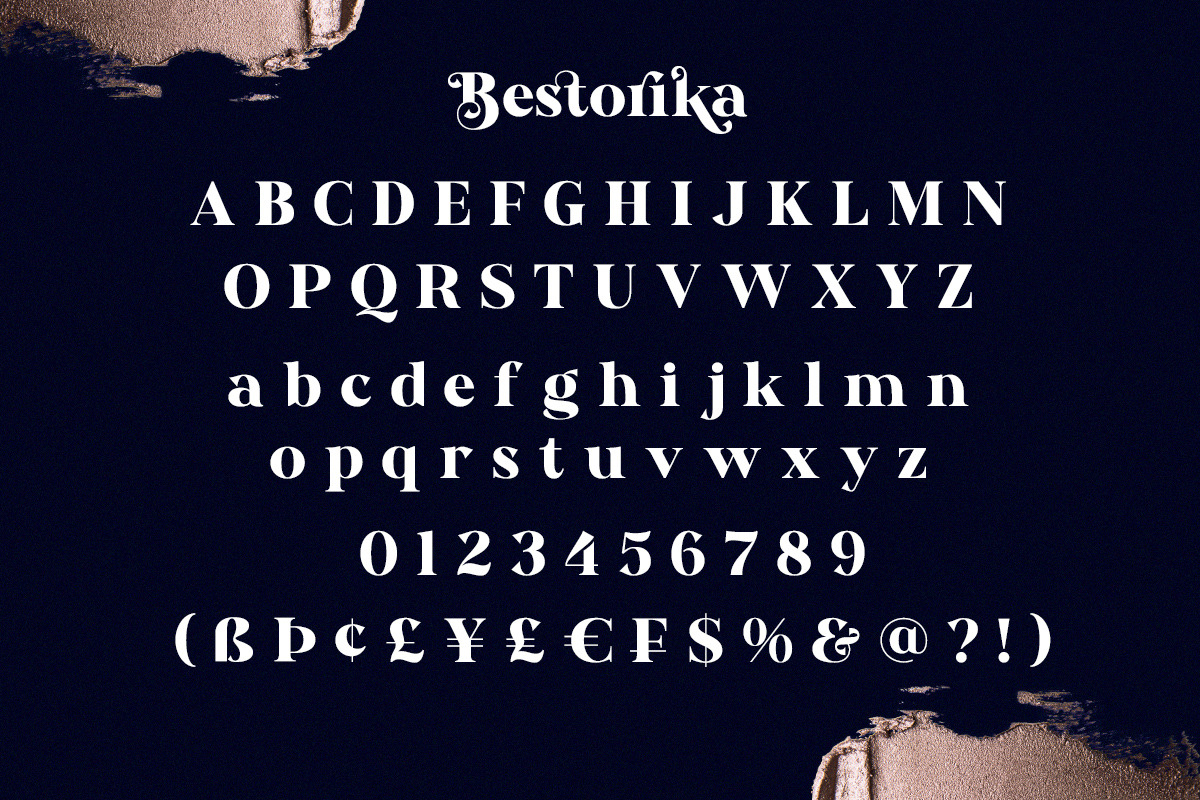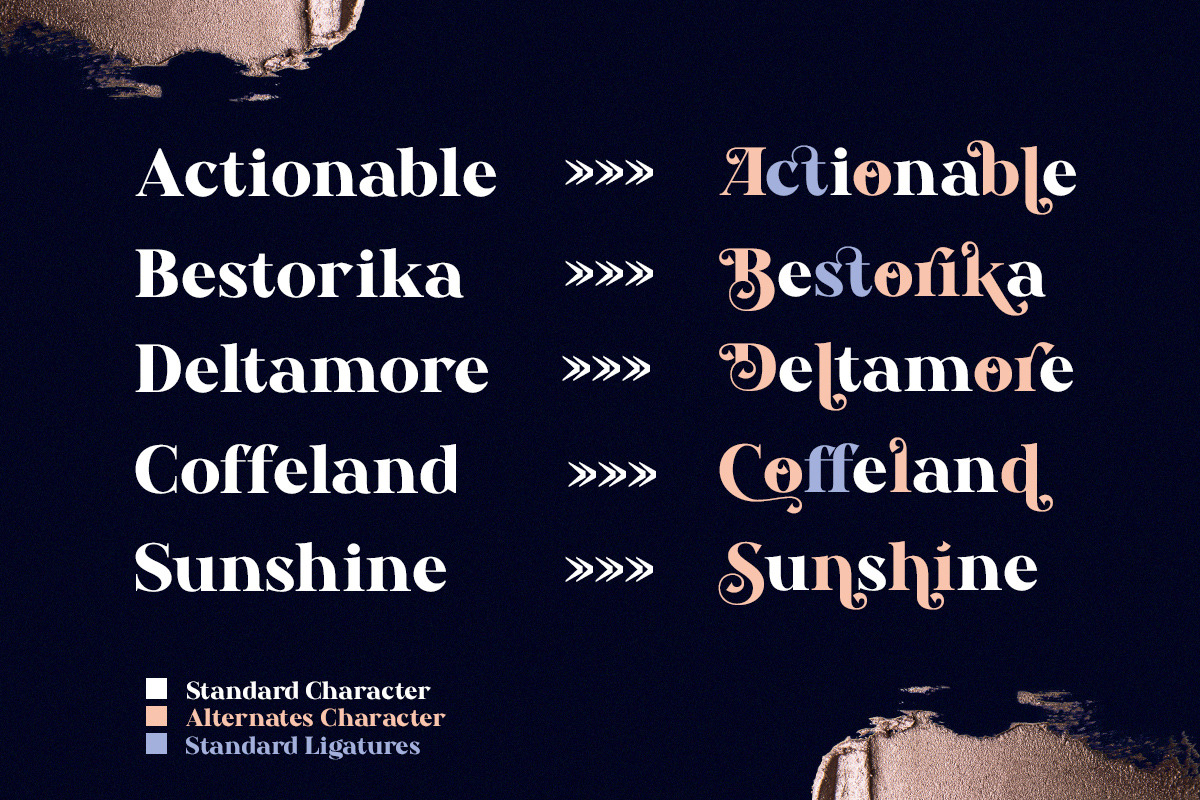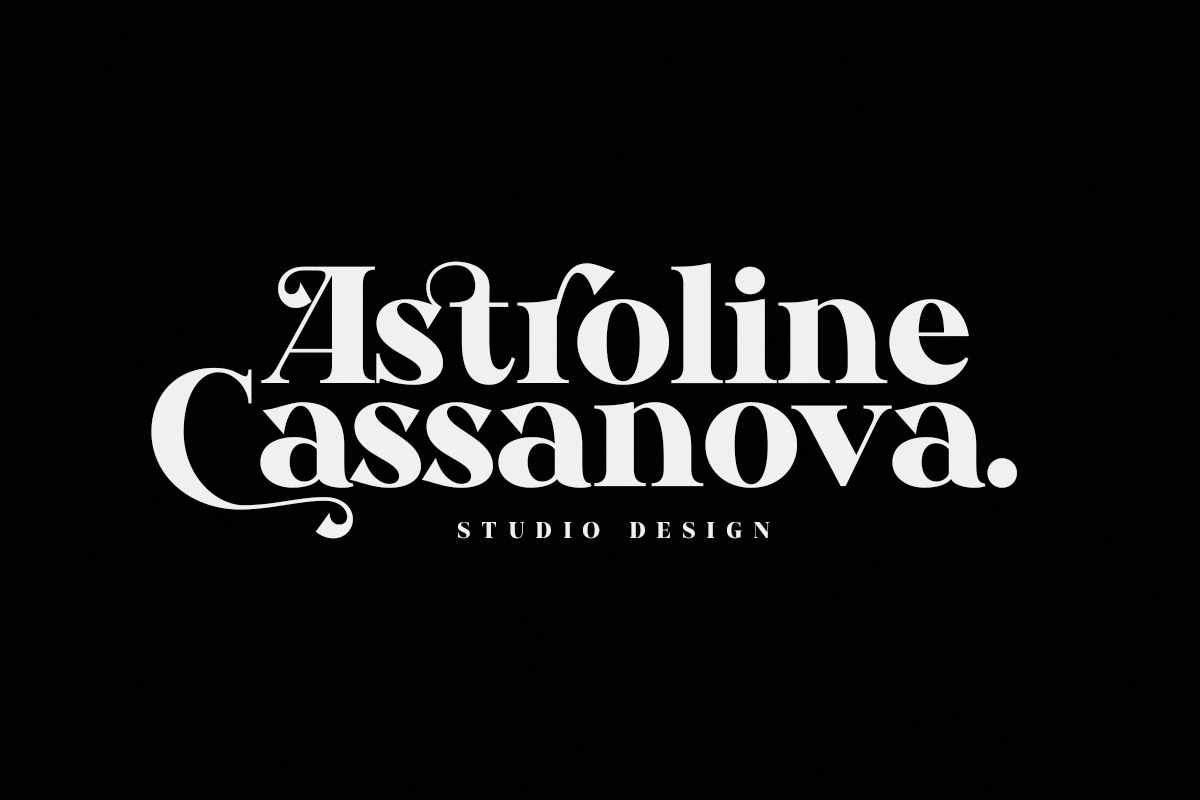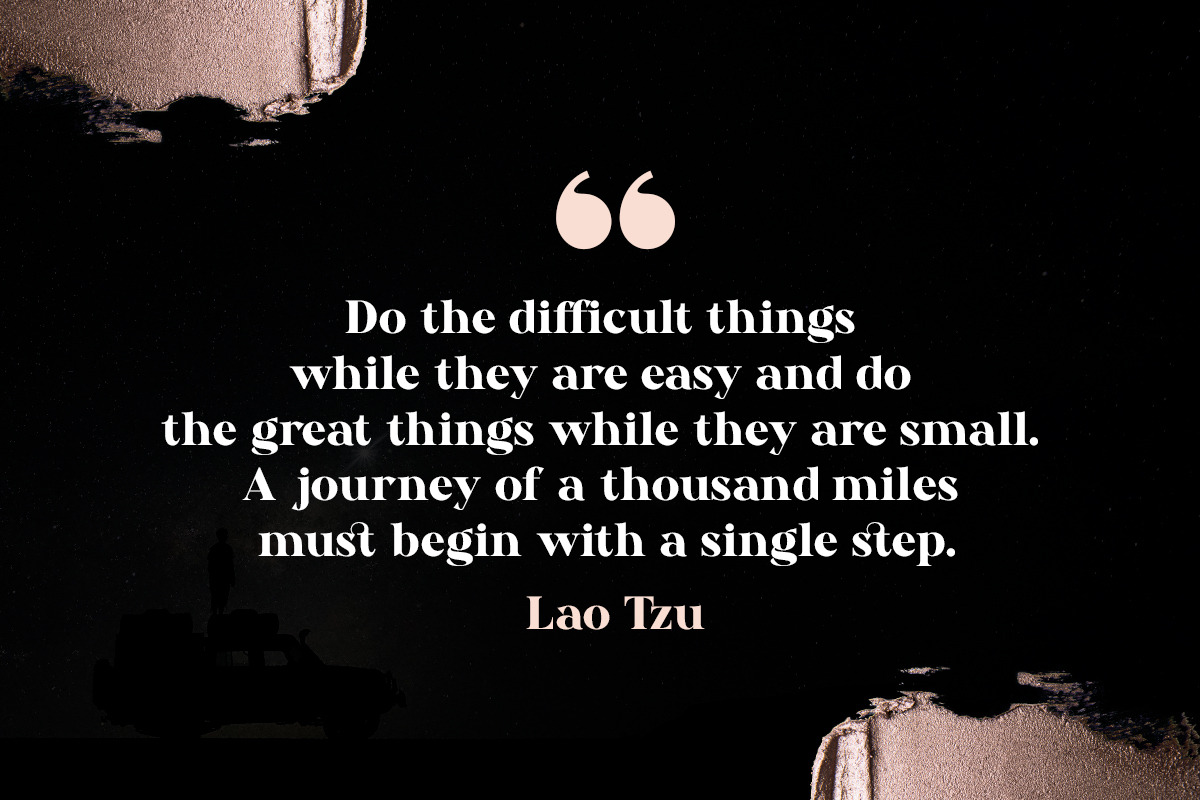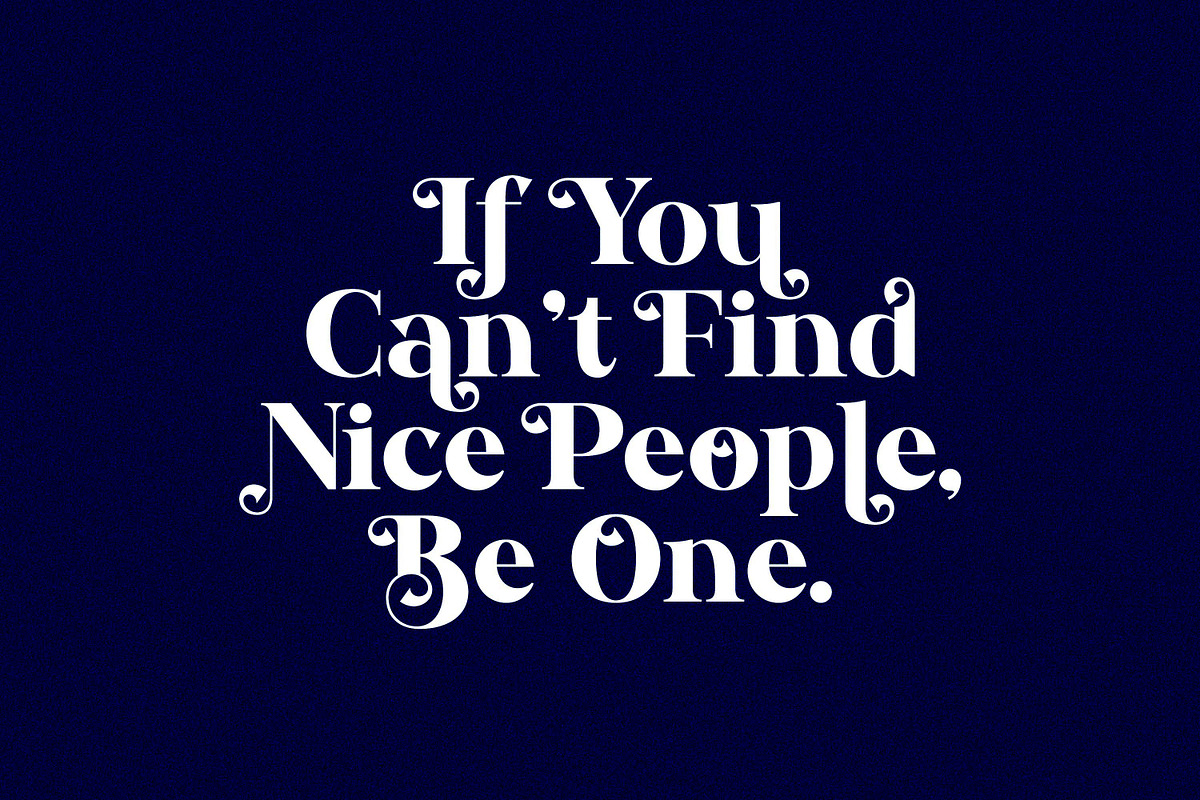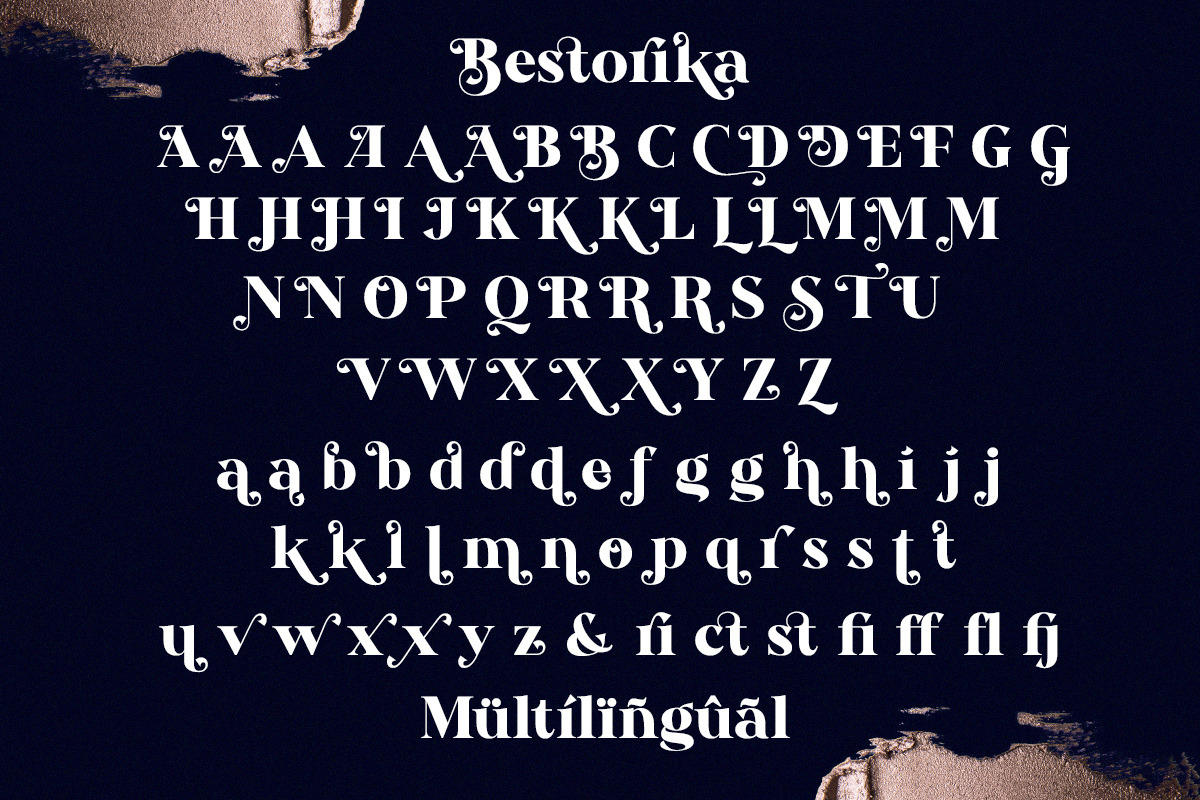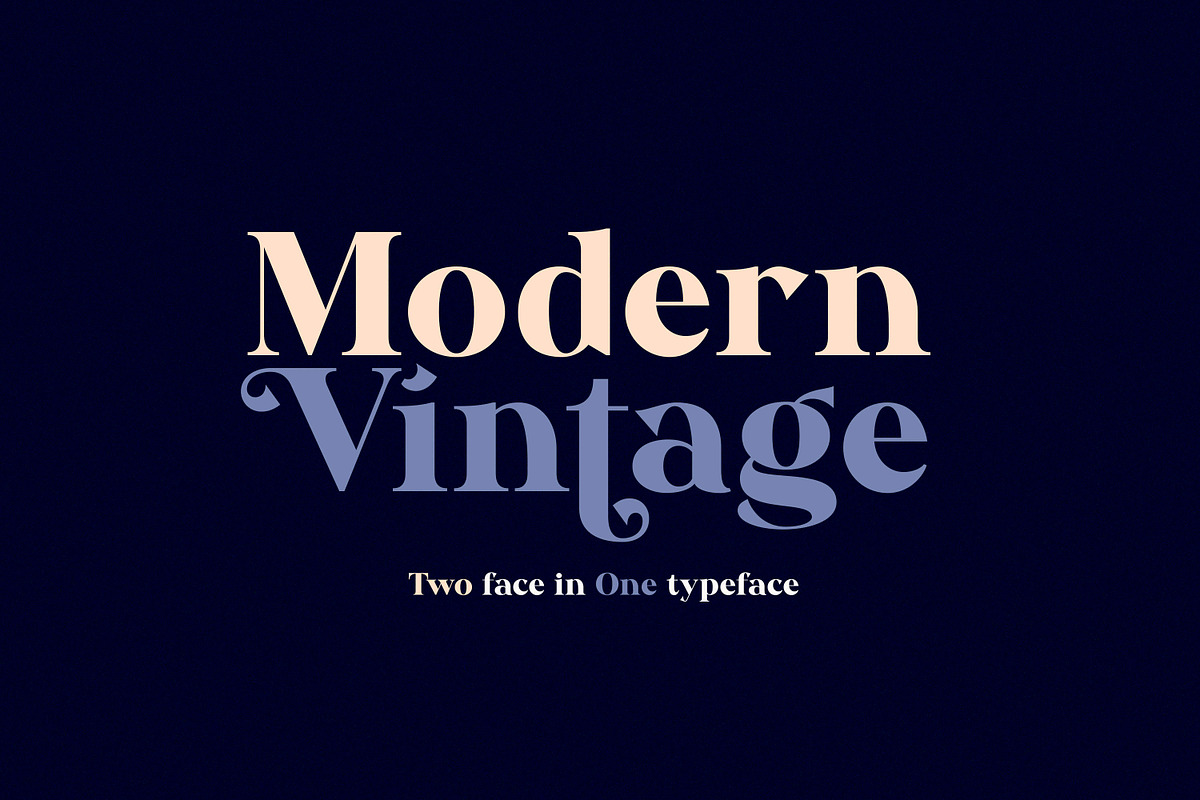
Bestorika - Modern Serif
Introducing " Bestorika Beautiful Modern serif " with contrast lines and balanced curves. This font may be conservative and classic and also may be more playful and modern. A lot of stylish alternates will give you many useful variations for use. Try to play with compositions of curves / alternate letters basic.
Like all of my fonts it is inspired by lettering from the good old past, but it still has a strong modern appearance. Its wide range of stylistic alternates allows versatile design options and works perfectly for headlines, logos, posters, packaging, T-shirts,coffee shops, restaurants, magazine headers, signs or gift/postcards, cafe and weddings.
Try to use it in your beauty or travel blogs, you will see how many options you will have with stylish Bestorika.
Multilingual. Supports the following languages: Czech, Danish, Dutch, English, Estonian, Faroese, Finnish, French, Galician, German, Icelandic, Irish, Italian, Norwegian, Portuguese, Polish, Spanish, Swedish, and Swiss German.